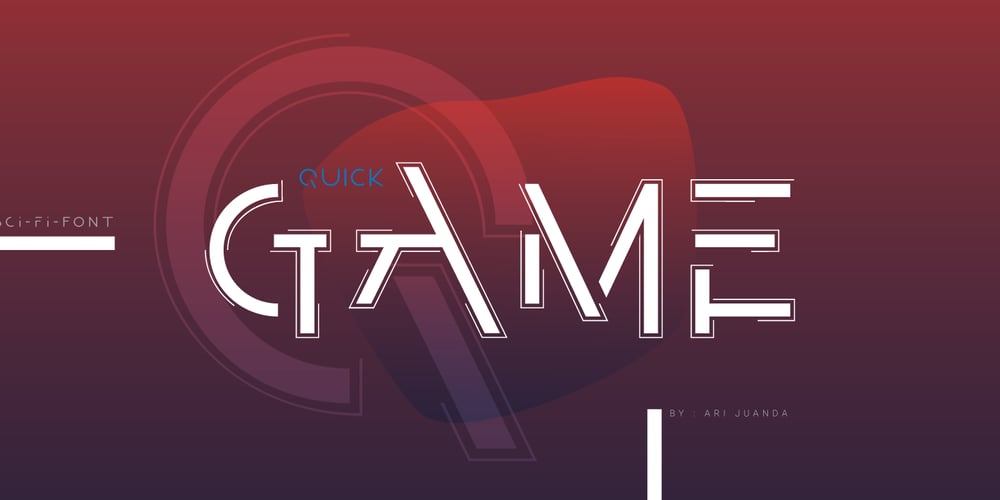
Quick Game Font Family was designed by Ari Juanda and published by Linecreative. Quick Game contains 1 styles and family package options. Introducing “Quick Game”, the futuristic font that was inspired from a sci-fi movie.Quick Game is a display font that is suitable on your headline to your magazine, flyer, poster or neon installation. Also clearly shaped to be applied in print design like t-shirt, mug, banner or motion graphic.• Uppercase• Lower-caps• Numbers• Punctuations• Supports Multi linguage (Latin Western Europe)• Ligatures Character & Stylistic alternates Character